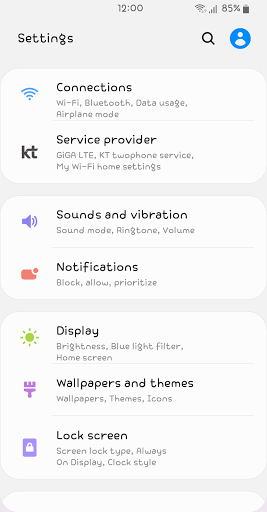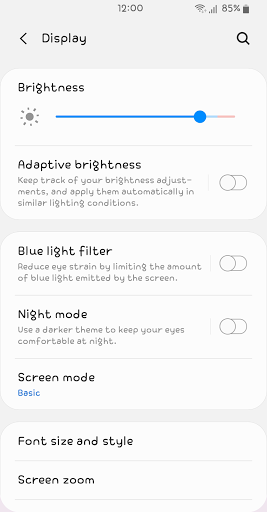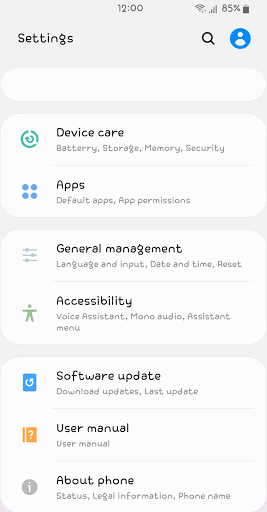
CatMaybeILOVEYOU™ Latin Flipfo
CatMaybeILOVEYOU™ Latin Flipfont
It's a creative Font CatFont who pursues romance and pleasure.
CatMaybeILOVEYOU™ Latin Flipfont is a cute, bright-feeling font that expresses the girl's heart thinking about the person she loves.